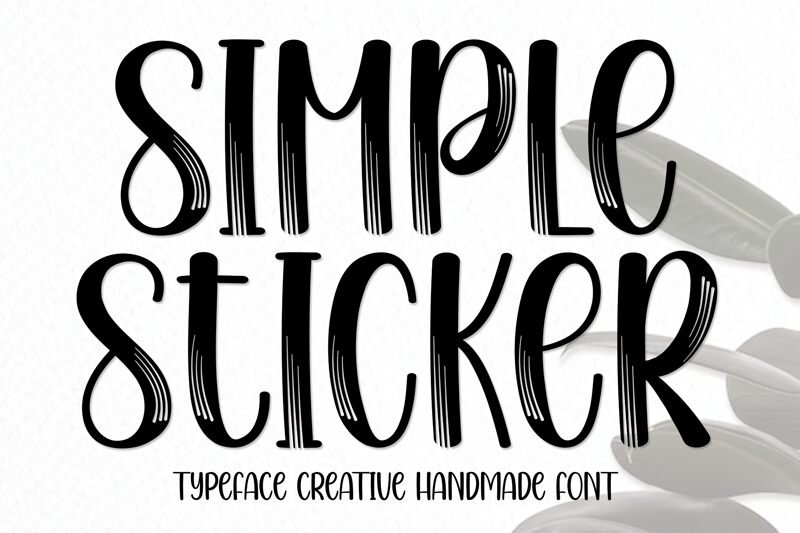
Simple Sticker
Simple Sticker font, crafted by Scratchones, exudes a delightful charisma with its lively brush style. Characterized by an eye-catching condensed form, each letter dances across the page, creating a playful yet sophisticated visual impact. The font skillfully blends fluid artistry with bold gestures, making it both inviting and dynamic.
Its unique charm makes Simple Sticker perfect for vibrant branding projects, expressive invitations, or engaging posters that need to grab attention without overwhelming the viewer. Whether used for fun merchandise or lively digital content, this font effortlessly infuses personality into any design context. Embrace its whimsical essence to transform ordinary text into extraordinary visual narratives.